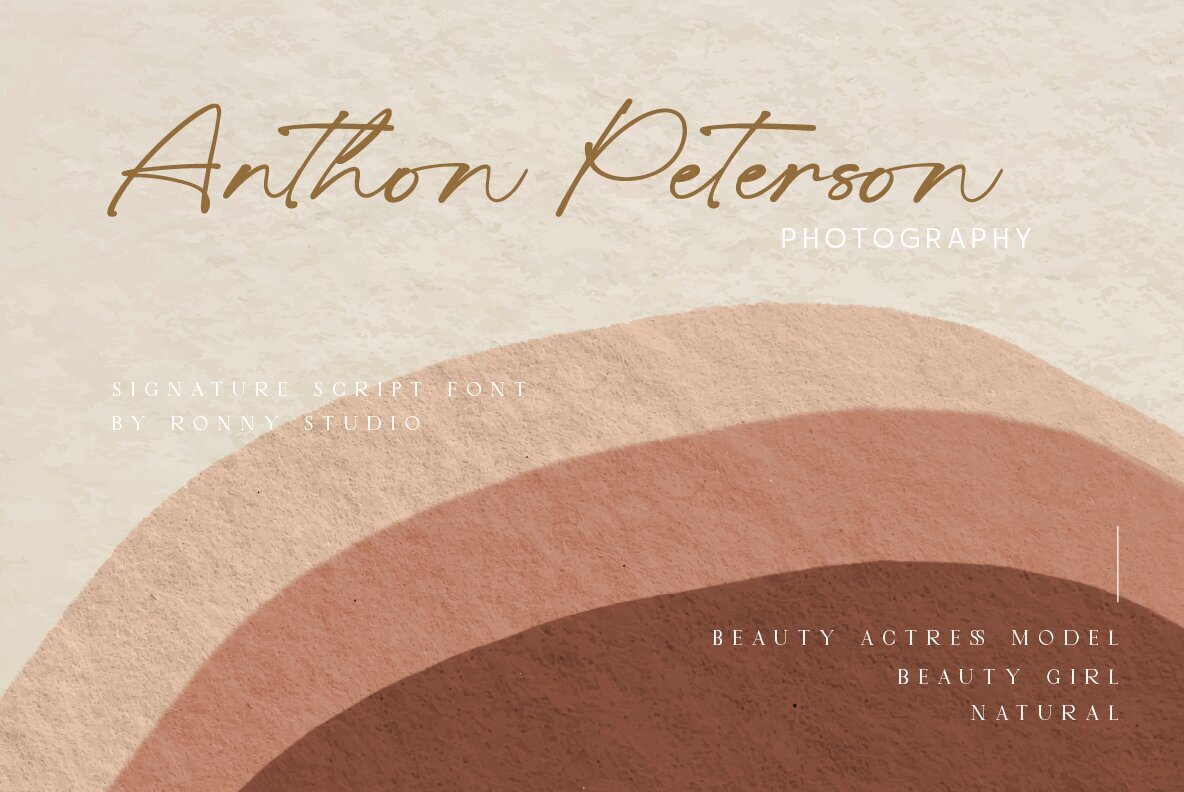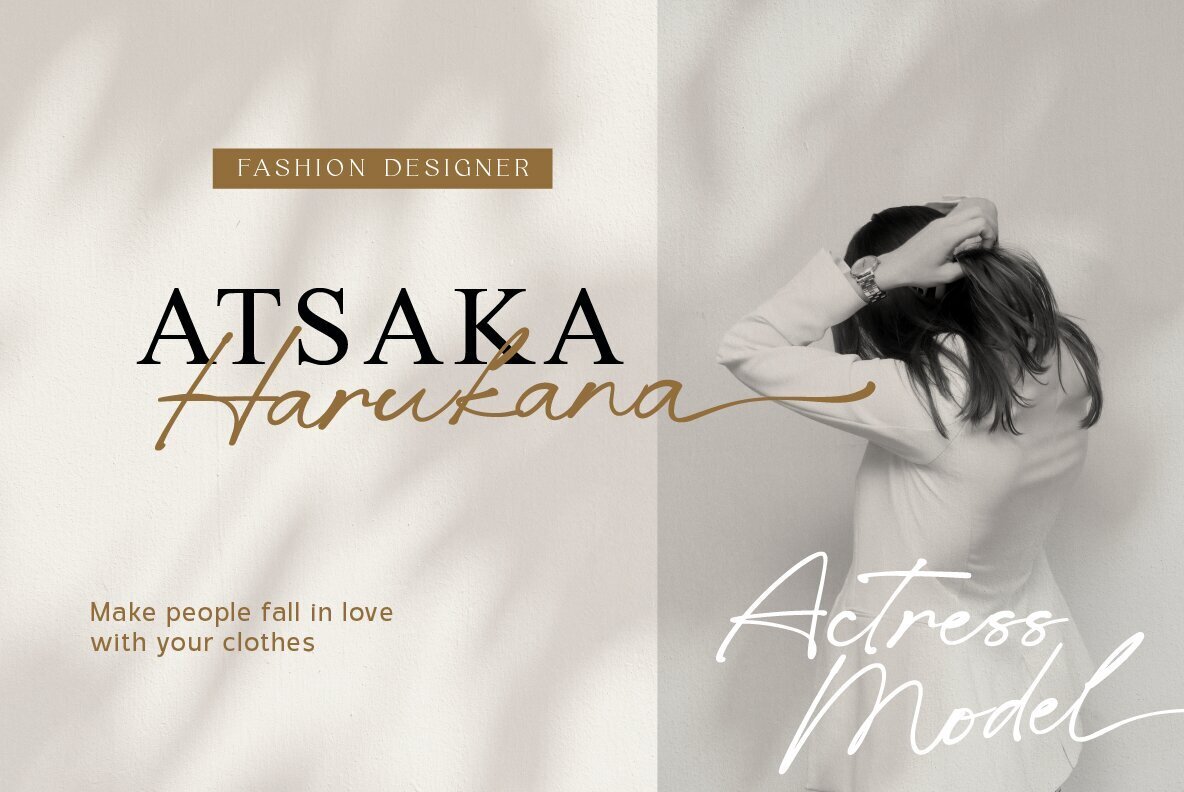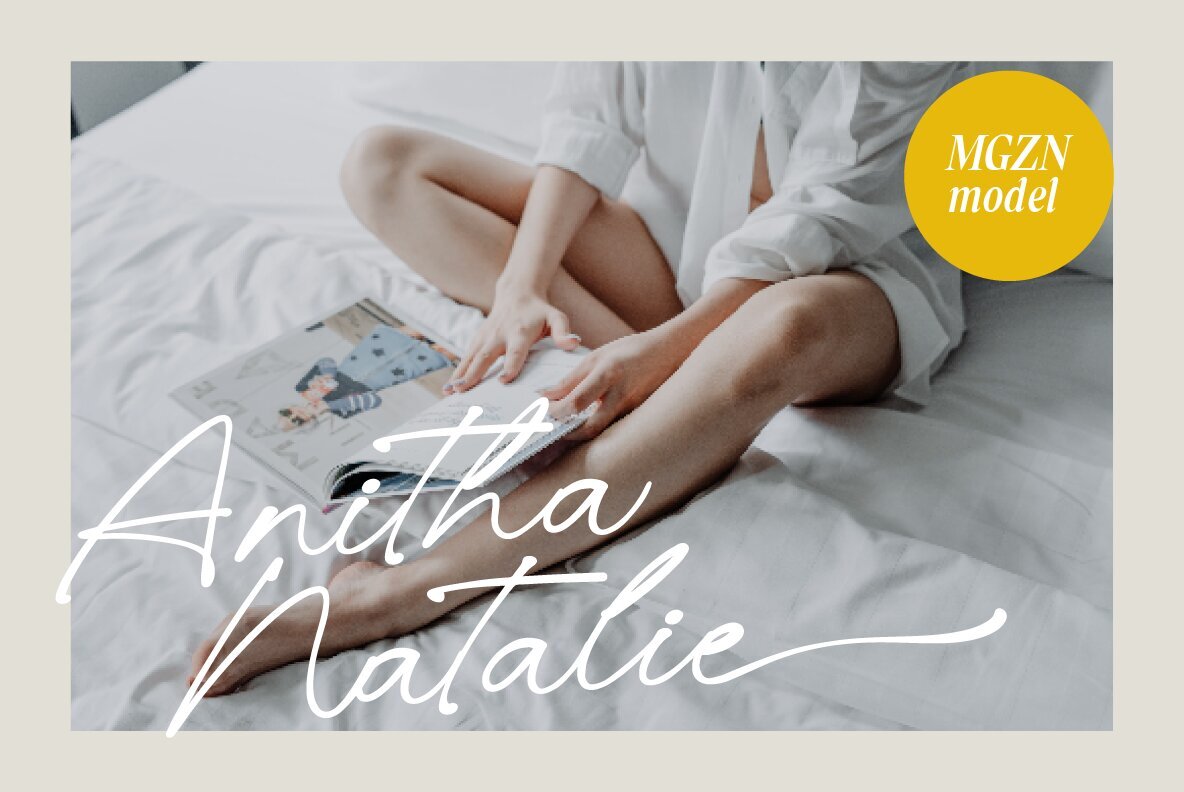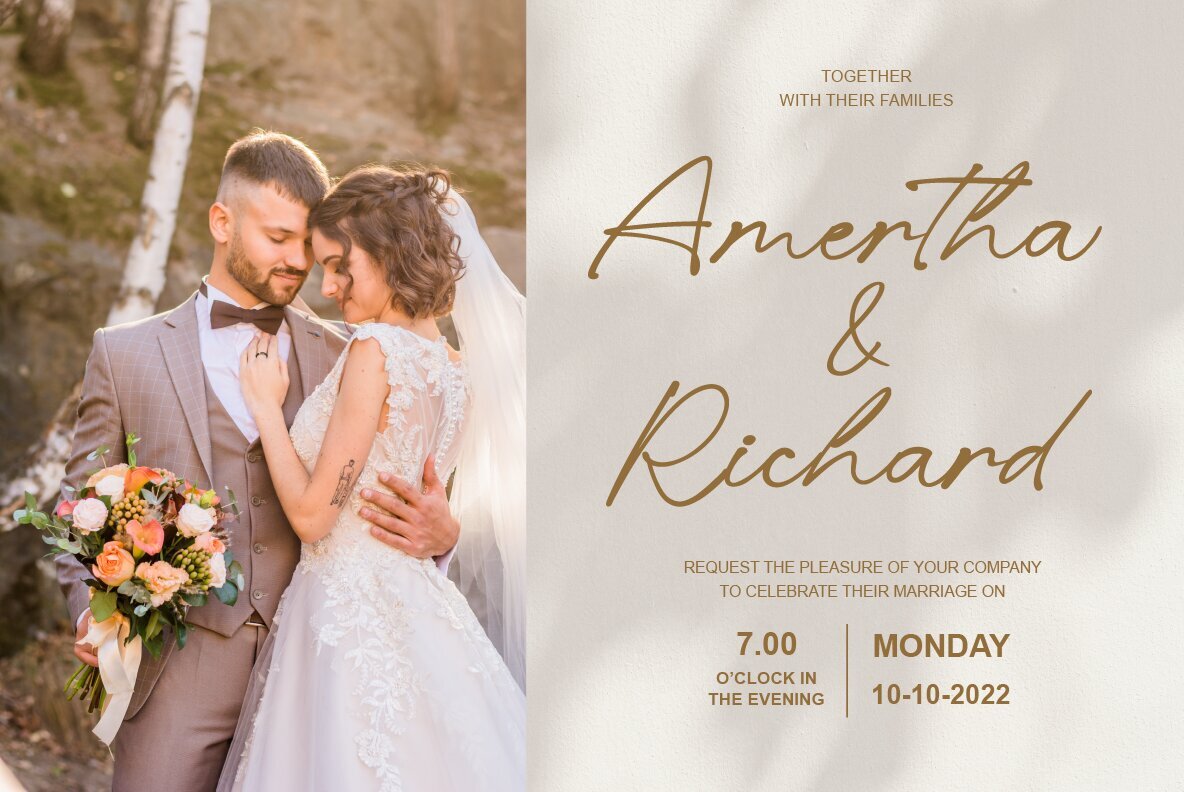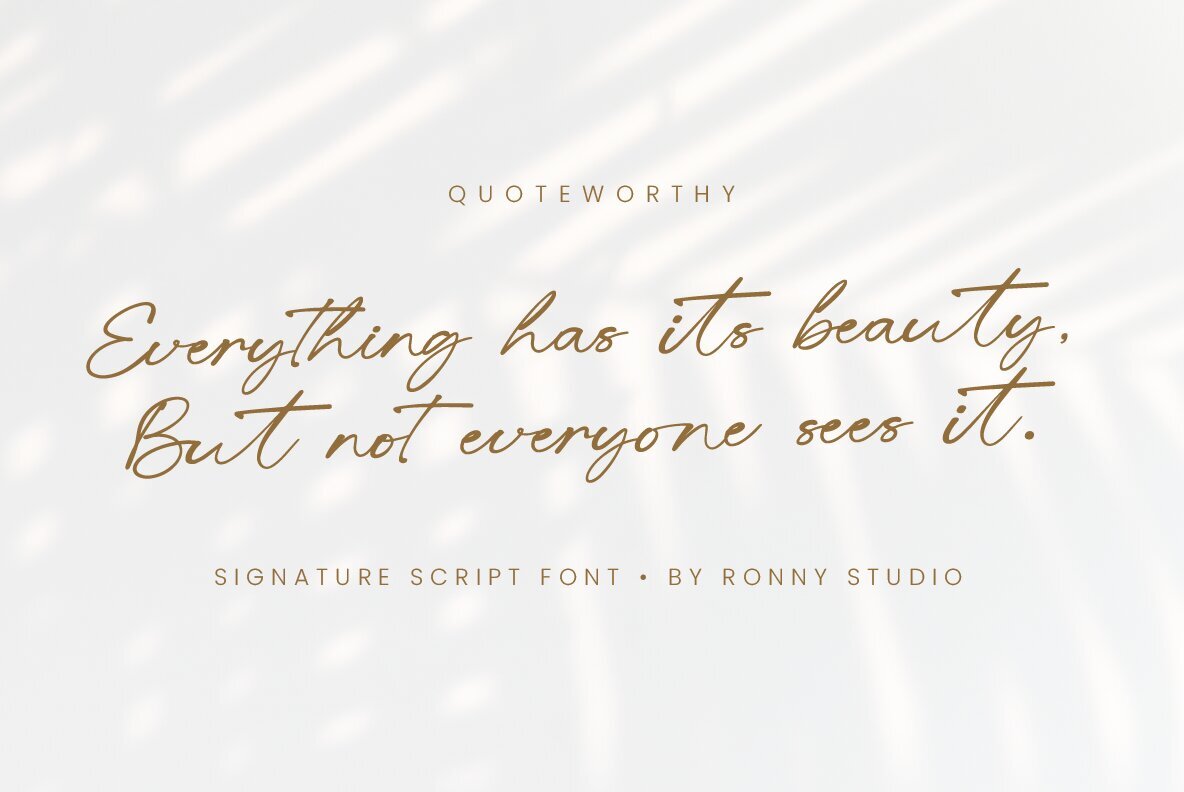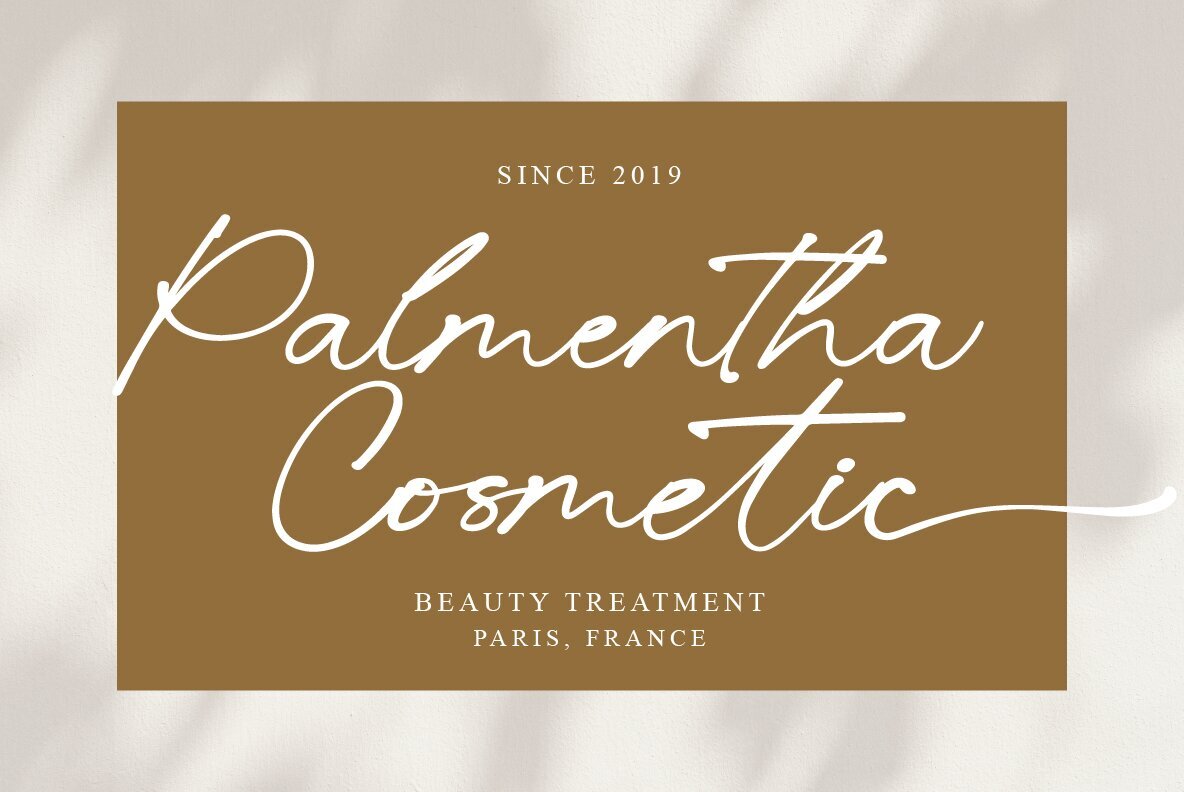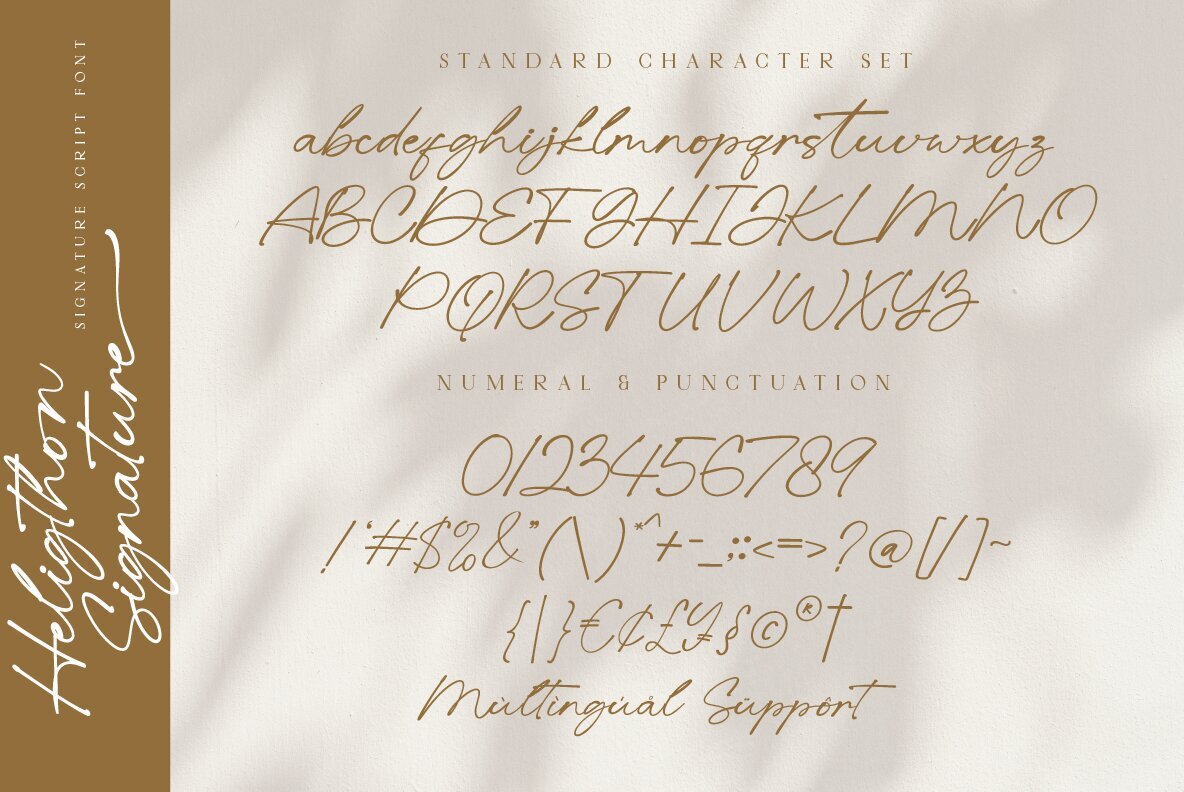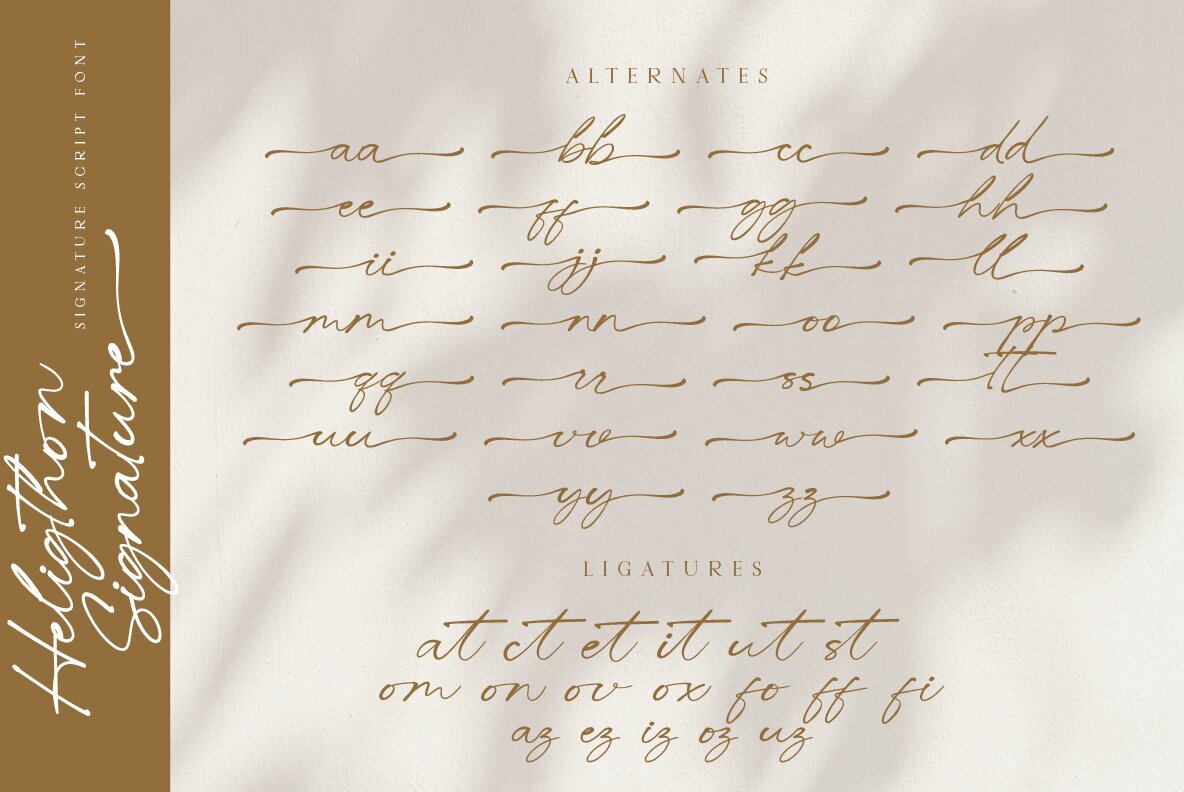
Heligthon Signature Font
Heligthon Signature
Heligthon Signature is a signature script font known for its beautiful strokes and elegant design. Professionally crafted, this font features a clean aesthetic that seamlessly enhances a variety of projects requiring a unique touch. It's an ideal choice for elegant logos, branding, promotions, magazine layouts, beauty products, business cards, weddings, quotes, or as a stylish text overlay on any background image.Heligthon Signature: Elegant Script Font with Beautiful Strokes